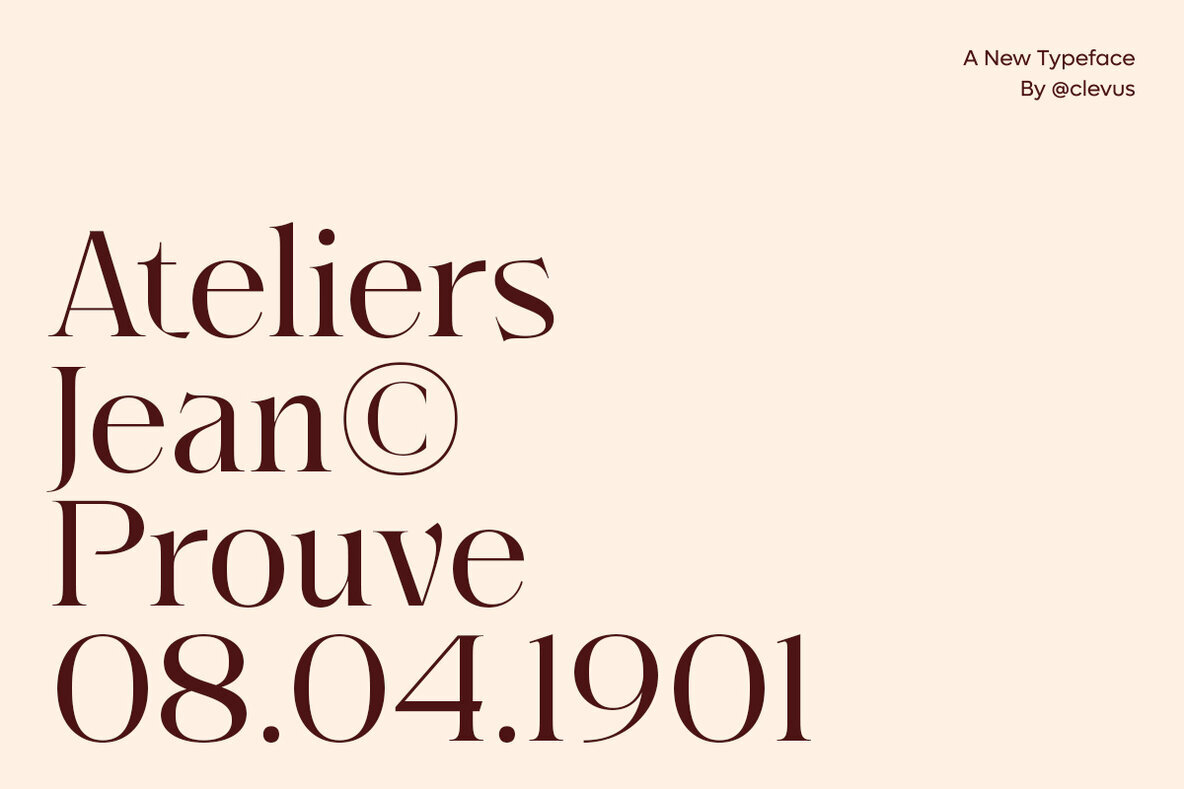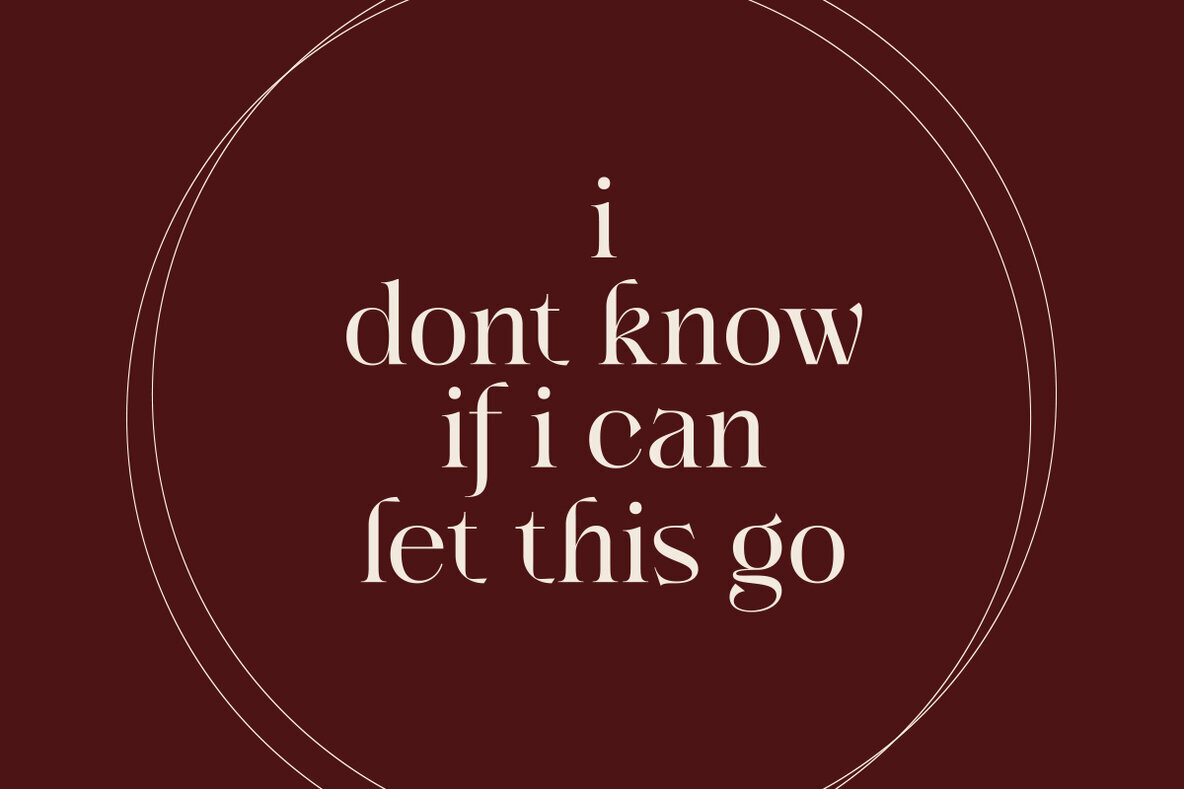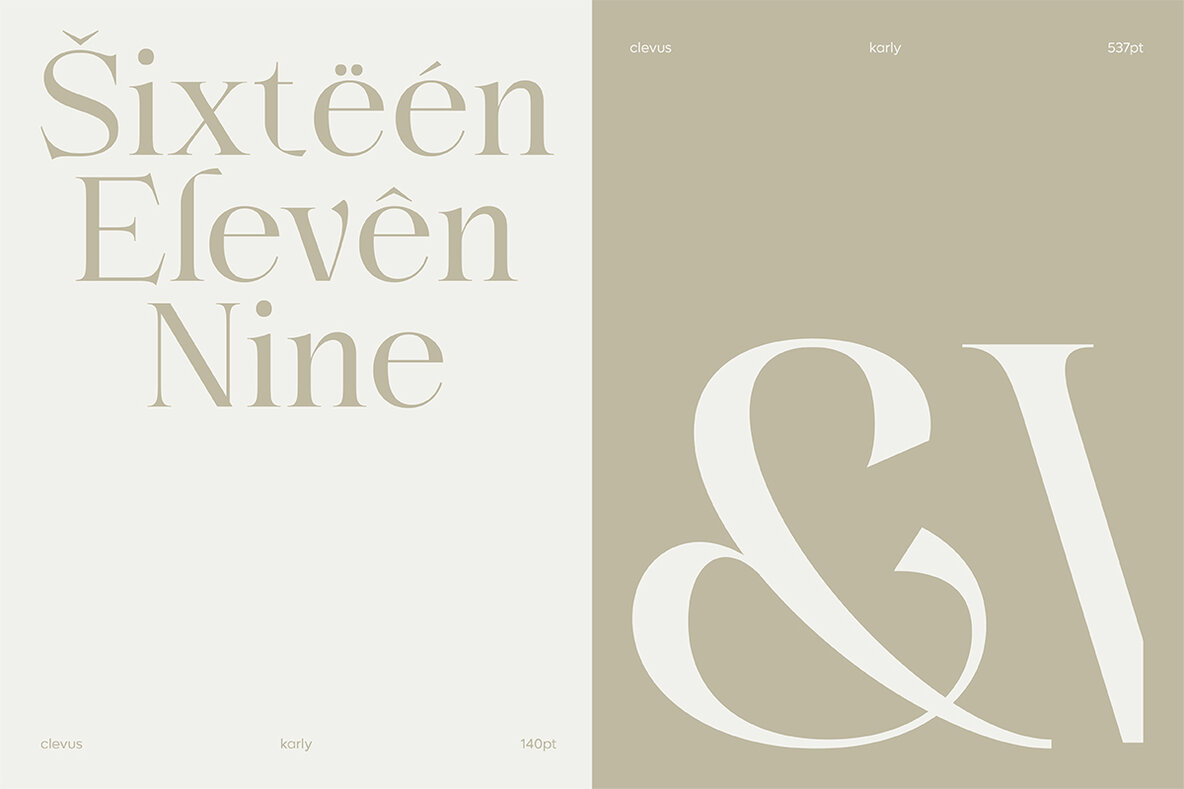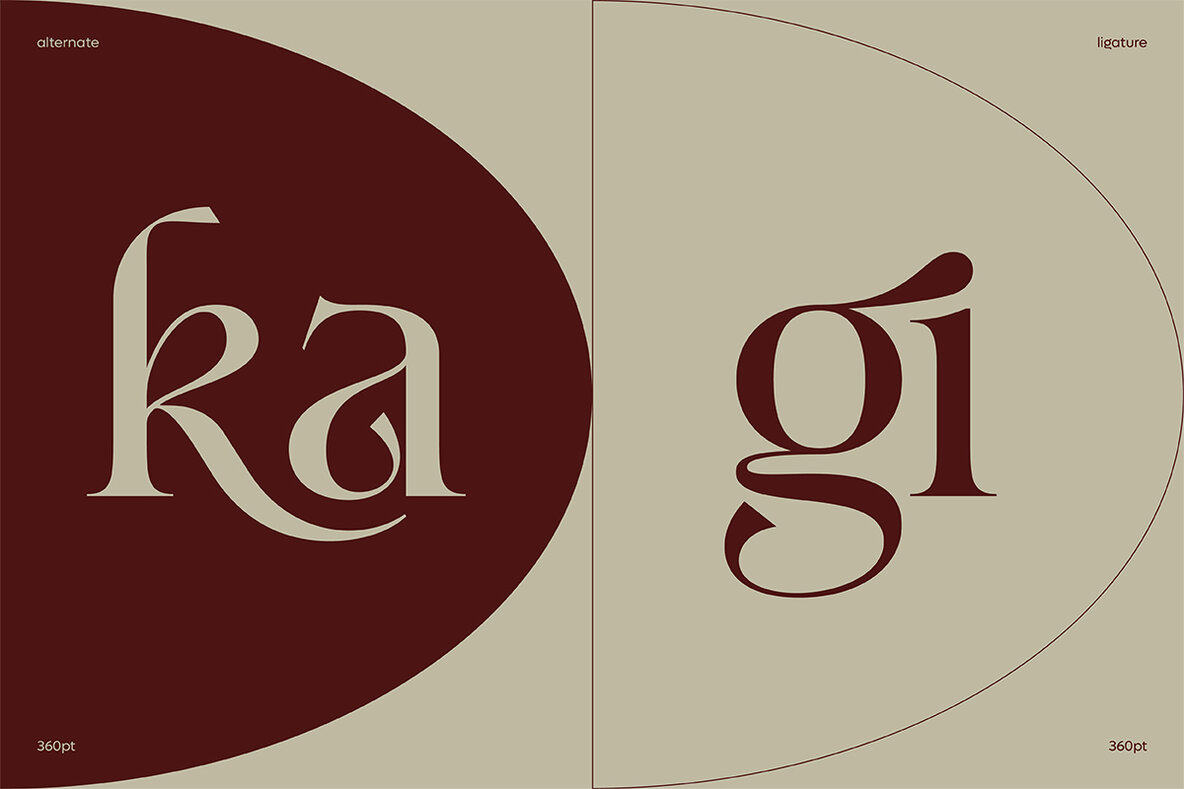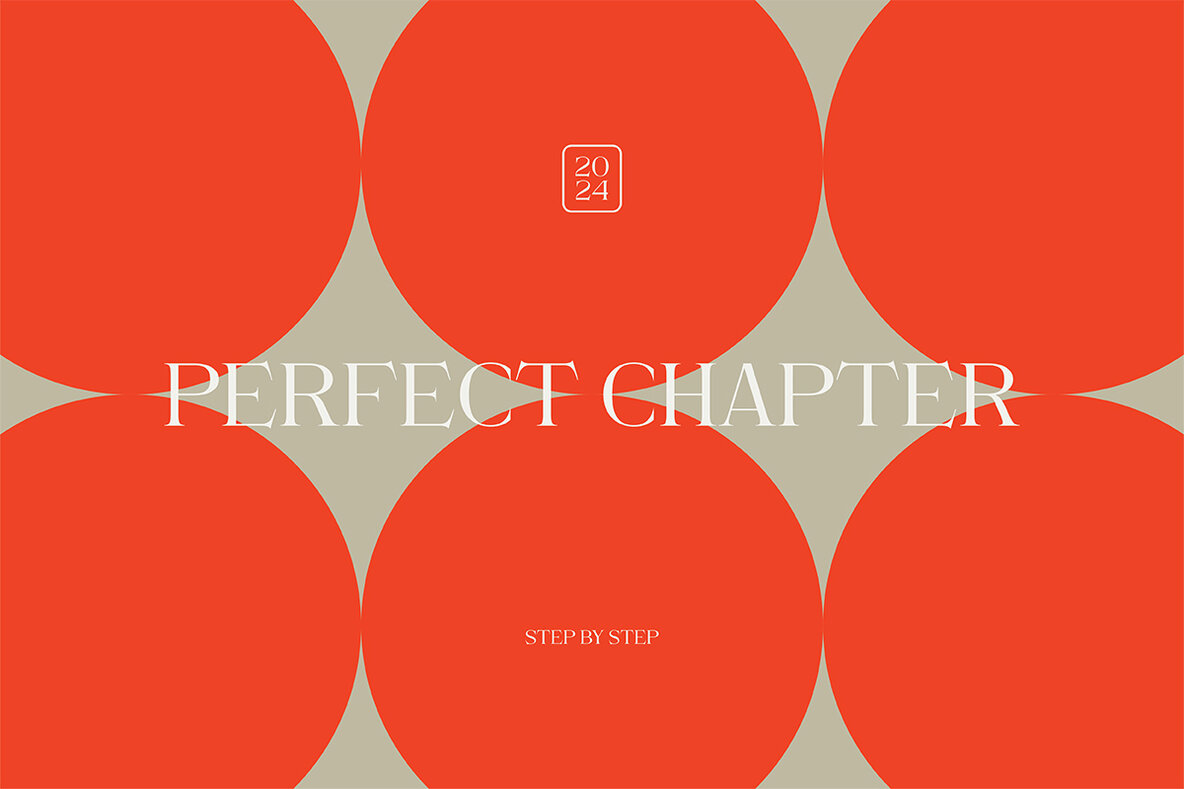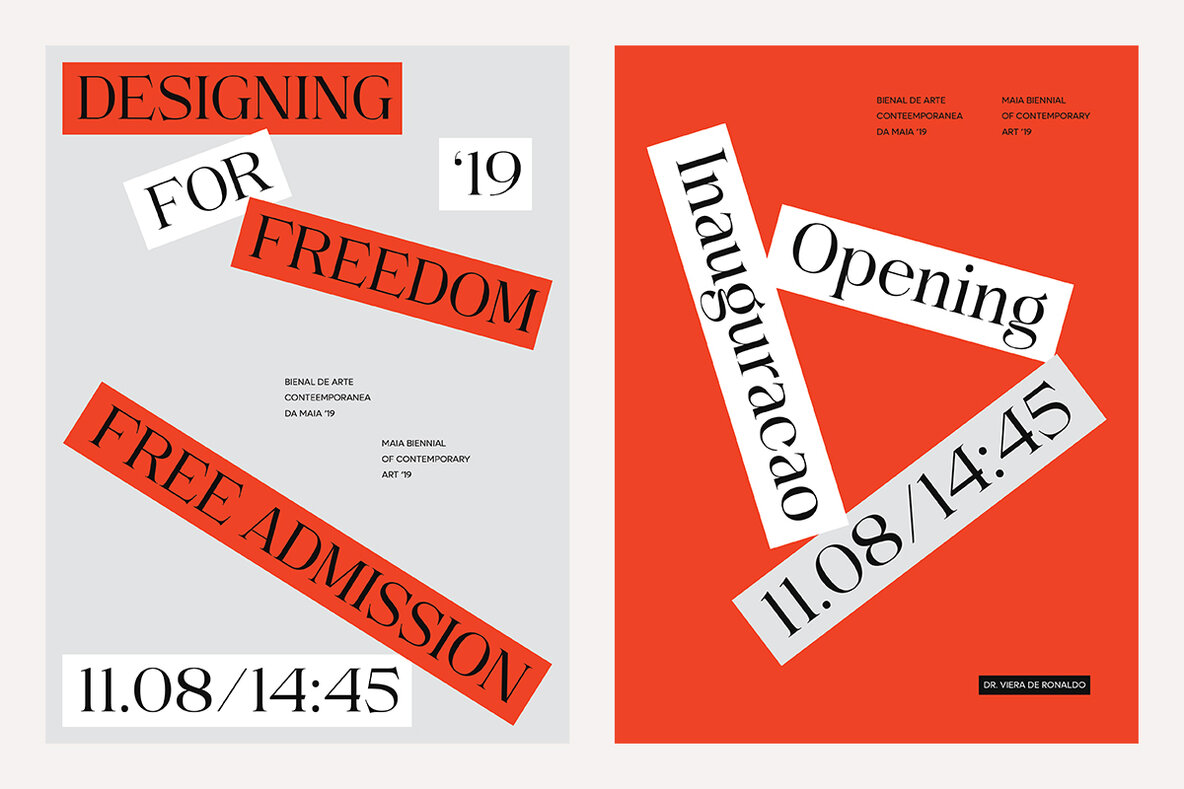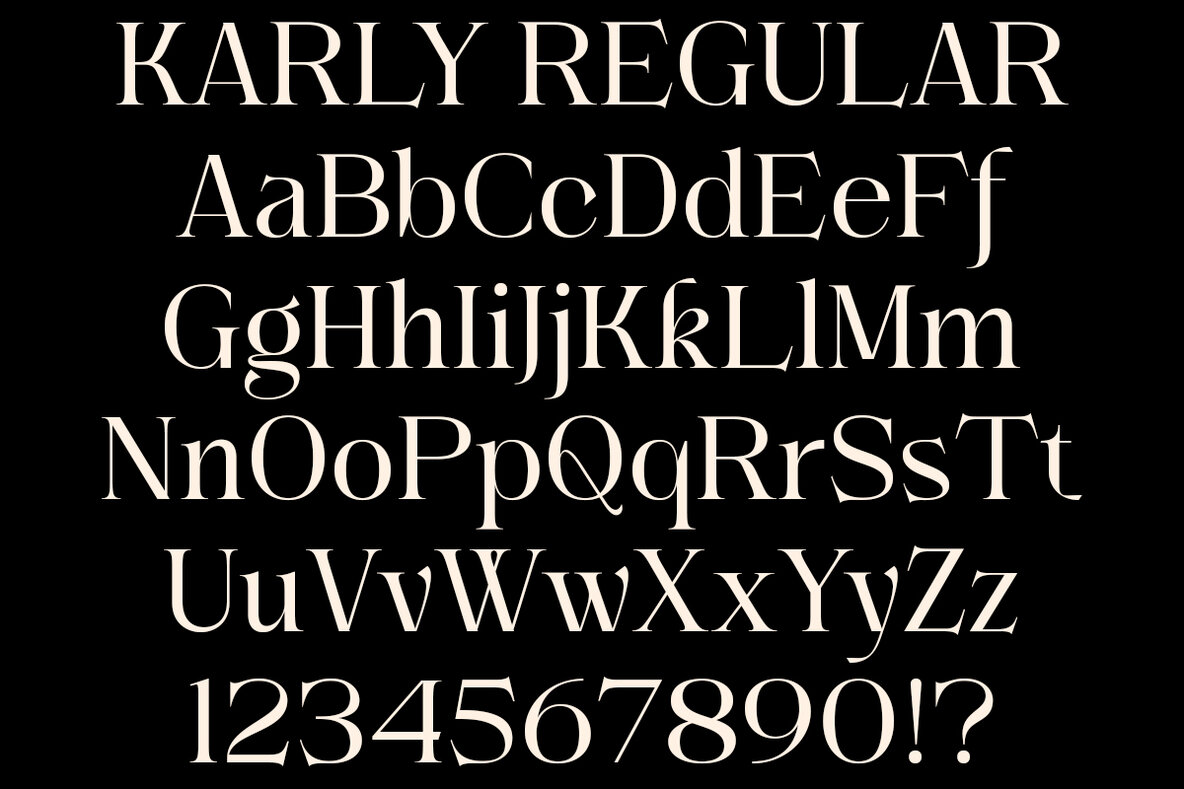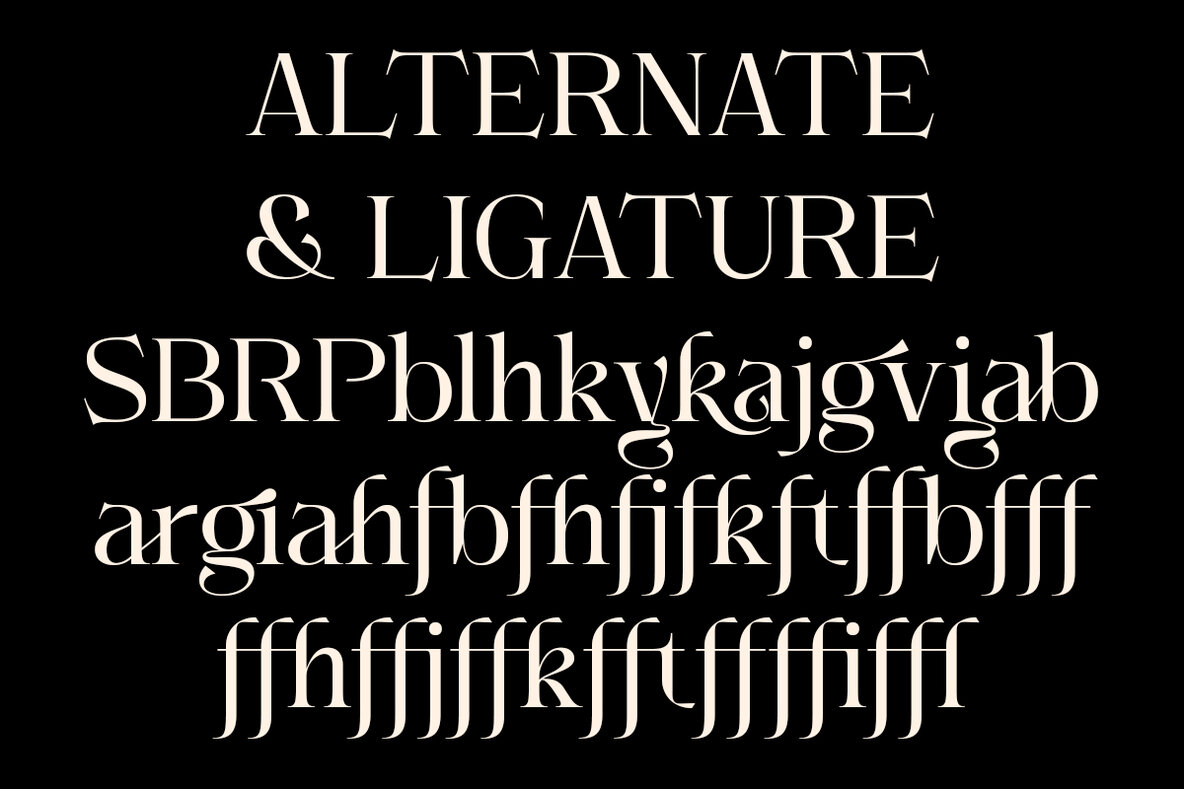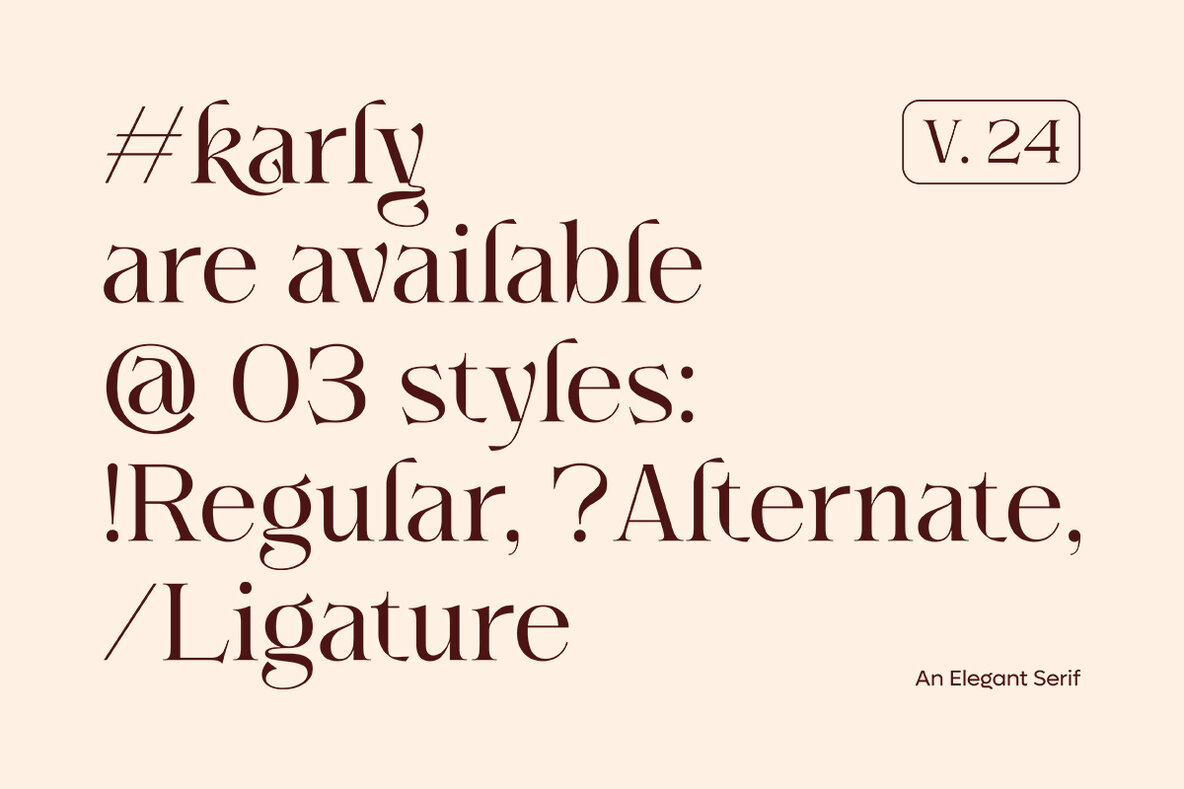
Karly Font
Proudly presenting "Karly" - a captivating serif font collection with elegant curves, bringing unforgettable beauty to each character. A manifestation of perfection and grace, this font adds a special touch to every design. Available in its main version with stunning curved lines, as well as a regular version nestled within its alternates, adding a new dimension to your compositions.